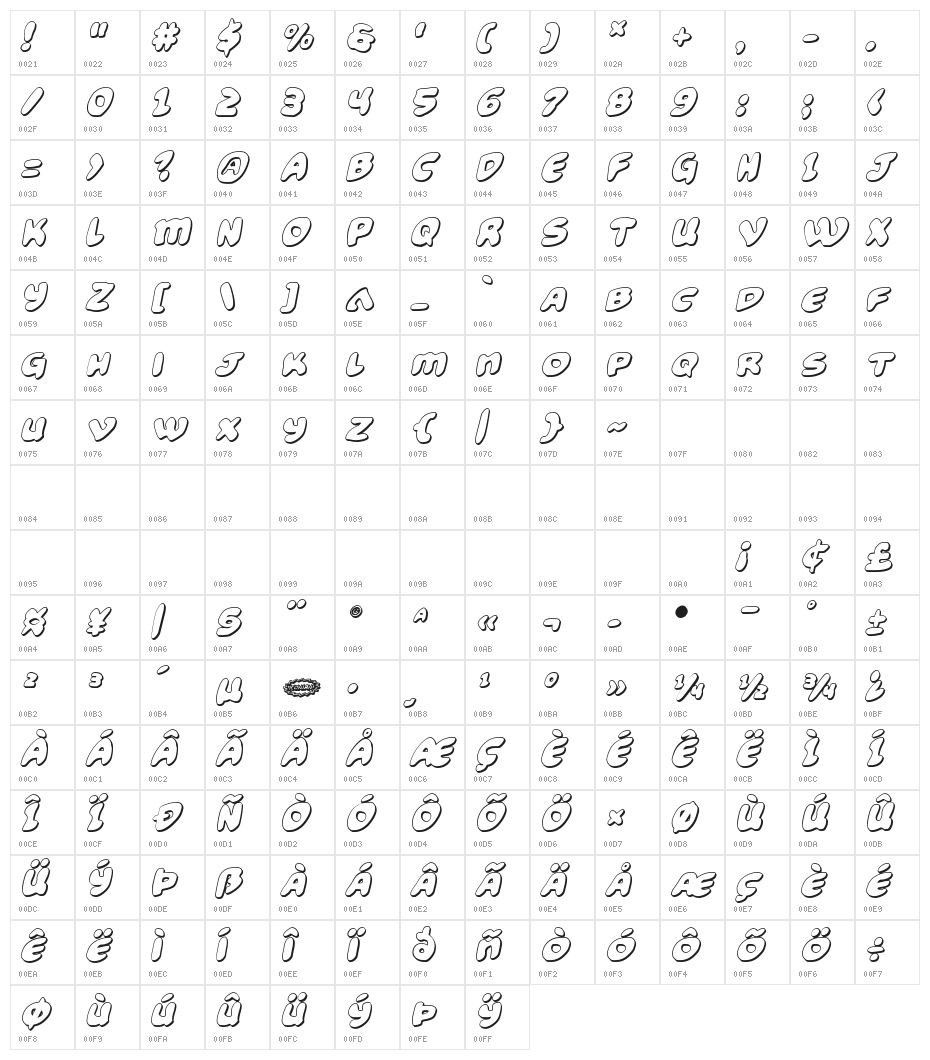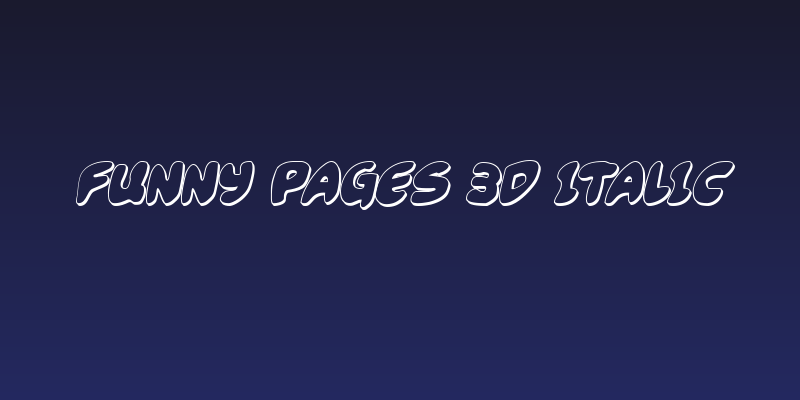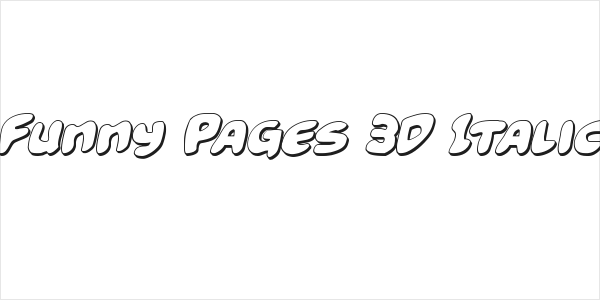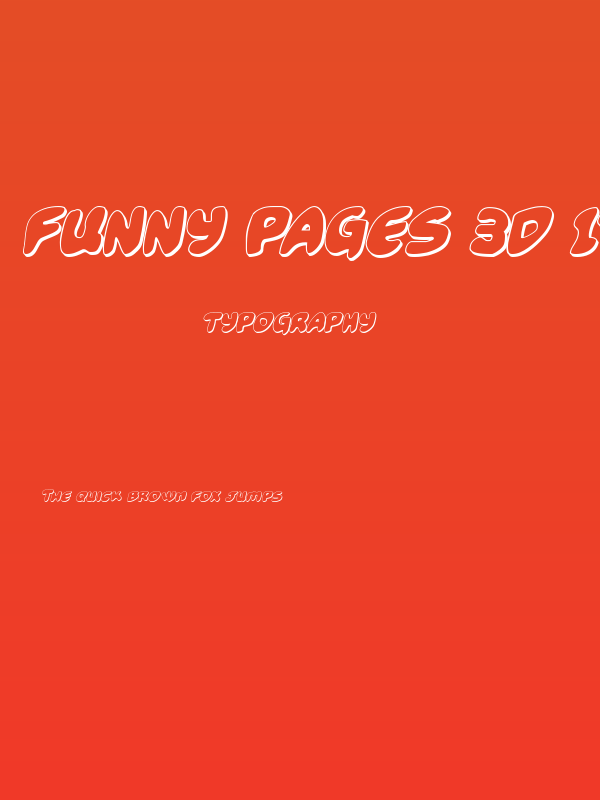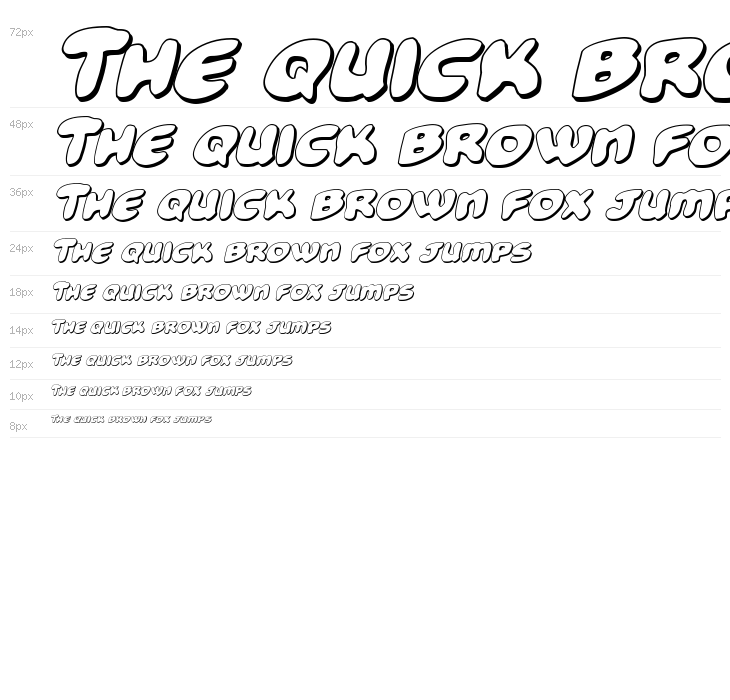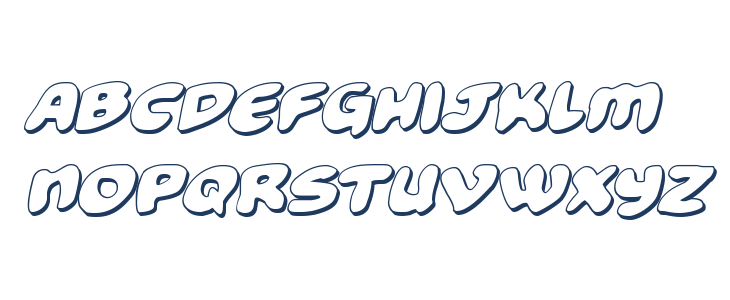
Funny Pages 3D Italic Font
Funny Pages 3D Italic Description
This playful and bold font features a three-dimensional effect with a slight italic slant, giving it a dynamic and lively appearance. The characters are rounded and thick, with a cartoonish style that adds a sense of fun and whimsy. The 3D effect is achieved through a shadow-like outline that gives depth to each letter and number. This font is highly legible and eye-catching, making it suitable for designs that require a playful and engaging look. The consistent thickness and rounded edges contribute to its friendly and approachable feel, making it ideal for projects aimed at a younger audience or for those that want to convey a sense of humor and creativity.
| Overall Style | Playful, Cartoonish, Fun |
| Proposed Projects | Ideal for children's books, comic strips, playful branding, and creative posters. |